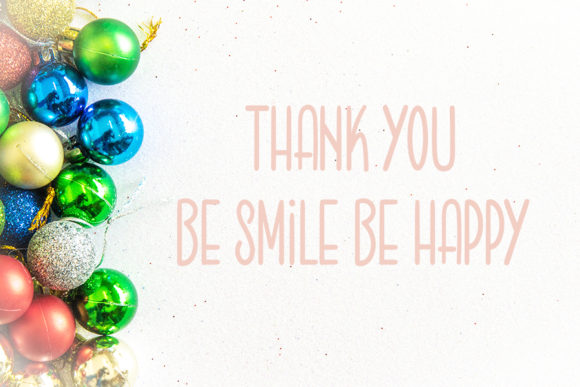
Hello Christmas Font
Hello Christmas is a simple and neat sans serif font. It can naturally matched to a large set of projects, so add it to your creative ideas and notice how it makes them stand out!